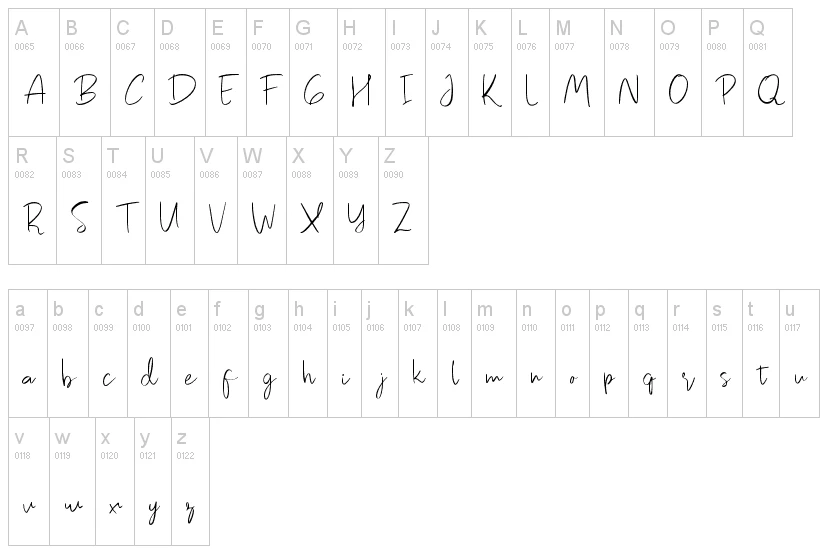
Introducing, Pastelyn Handwritten Font is a delightful handwritten and Script font. It’s a handmade script typeface designed to seem like authentic handwriting. Craft supplies company developed and shared the font. Only Uppercase and Lowercase Glyphs are included. The process of having the font is very easy also.
Fashion, e-commerce firms, trend blogs, wedding boutiques, and any other business that wishes to appear posh and chic will love this typeface. It can also be used for a logo, greeting cards, quotes, posters, branding, name cards, stationery, design titles, craft designs, any DIY project, book titles, or simply to make your art or design project appear nice and trendy.